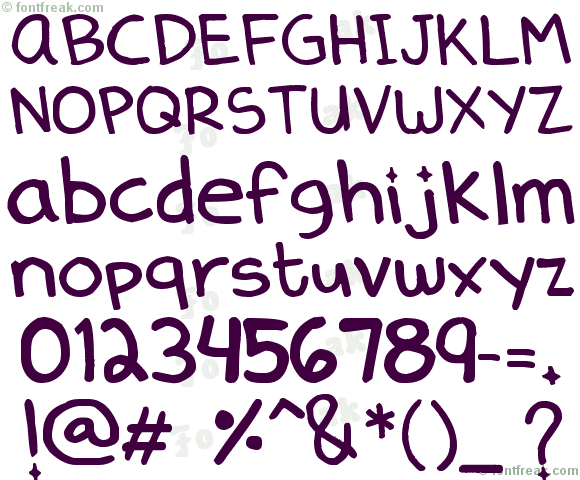
Denne Delica
About Denne Delica
The Denne Delica font, designed by Denise Bentulan in 2009, is a captivating display typeface that exudes a whimsical charm. This font belongs to the decorative category, characterized by its playful, hand-drawn aesthetic. The stroke weight is moderately bold, providing a strong presence while maintaining a sense of friendliness. The irregularities in the letterforms add a unique touch, making each character feel personal and inviting. With a balanced spacing that enhances readability, Denne Delica is visually engaging and easy to use across various mediums.
This font is ideal for a range of creative projects. It can elevate wedding invitations with its romantic flair, making each invitation feel special and tailored. Additionally, it's an excellent choice for movie posters, where its playful nature can draw attention and evoke curiosity. Restaurant menus can benefit from Denne Delica's warm and approachable vibe, enticing diners with a sense of comfort. Content creators will find it useful for blog headers or social media graphics, as it captures a casual yet stylish essence that resonates with audiences.
Targeting graphic designers, small business owners, and content creators, Denne Delica offers versatility and an artistic edge that can enhance branding efforts. Its freeware license allows users to incorporate this distinctive typeface without any cost, making it accessible for all levels of design expertise.
What truly sets Denne Delica apart is its ability to blend whimsy with functionality. This font invites creativity, allowing projects to stand out while maintaining clarity and charm. For anyone looking to add a touch of personality to their work, a Denne Delica font free download offers an exciting opportunity to explore new design possibilities.